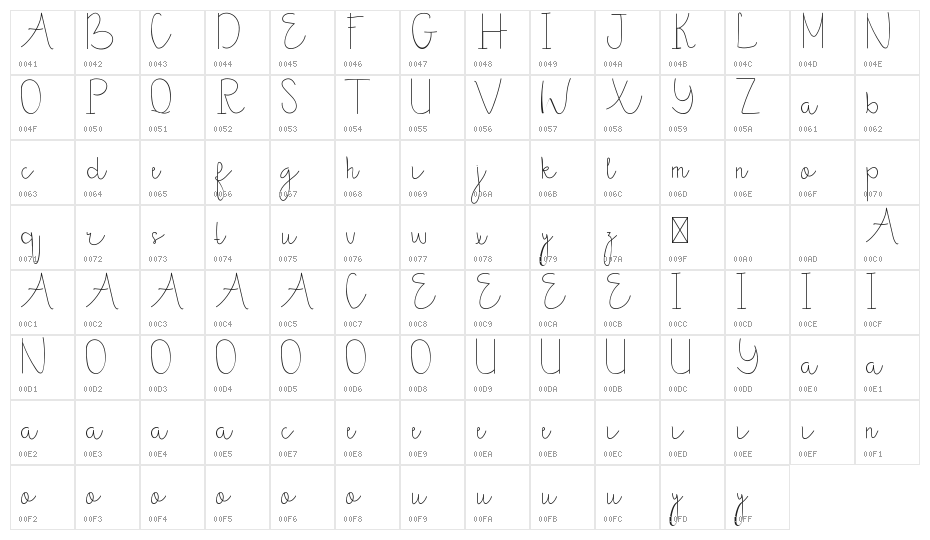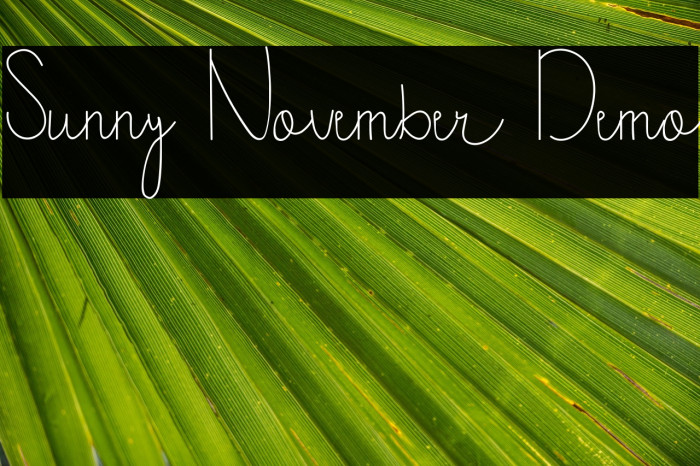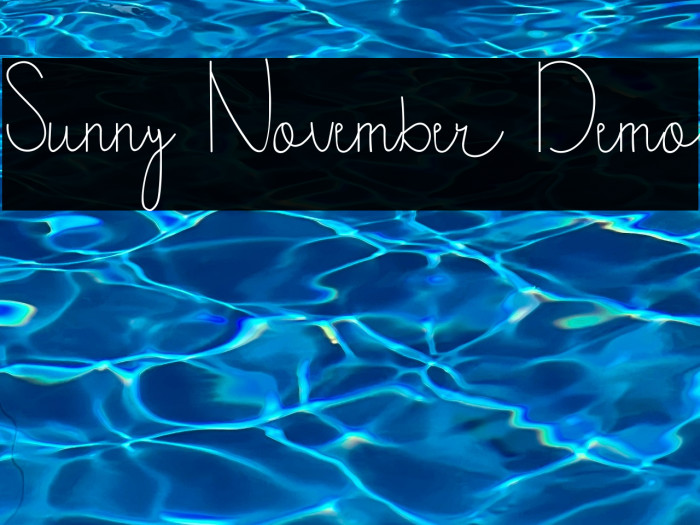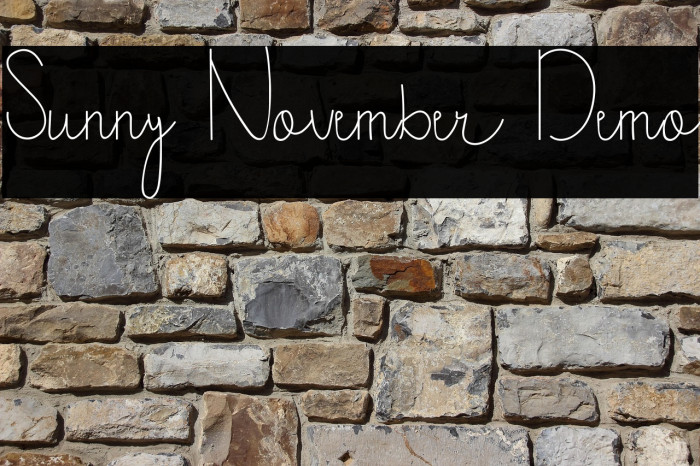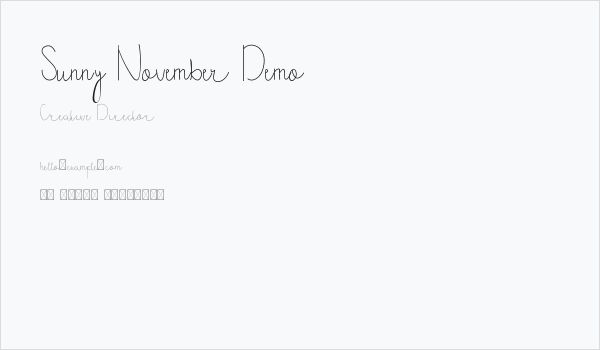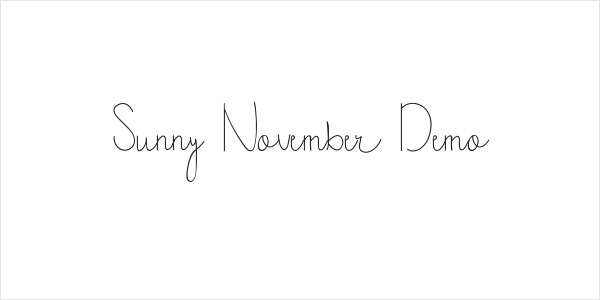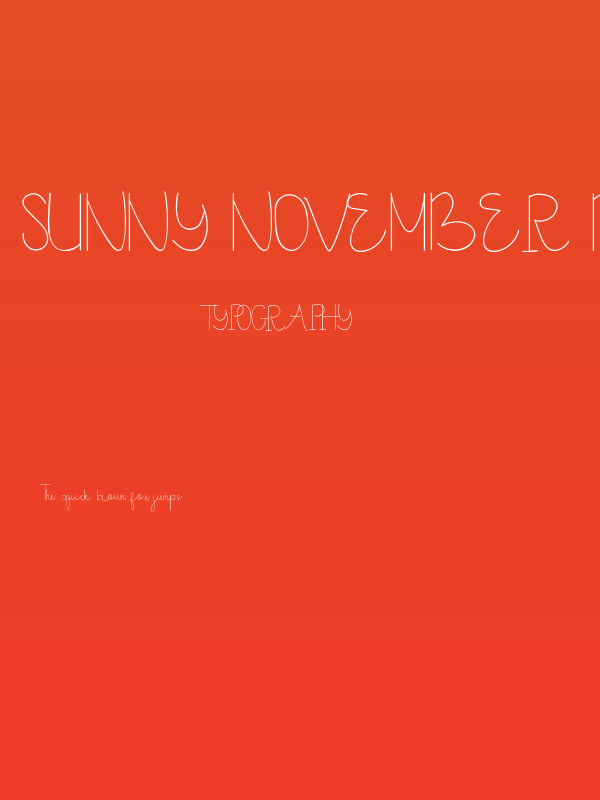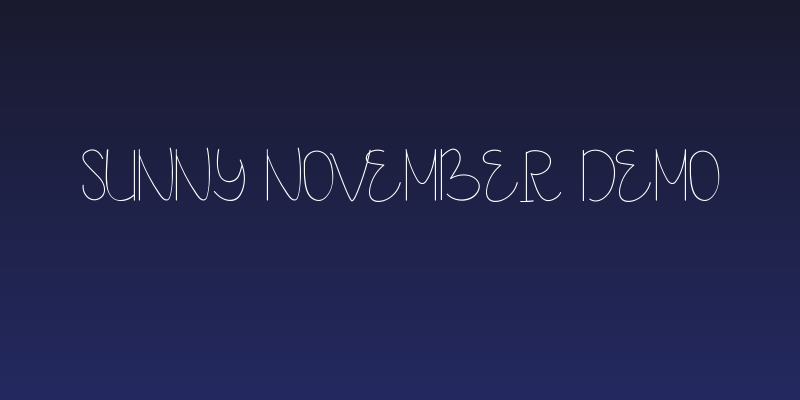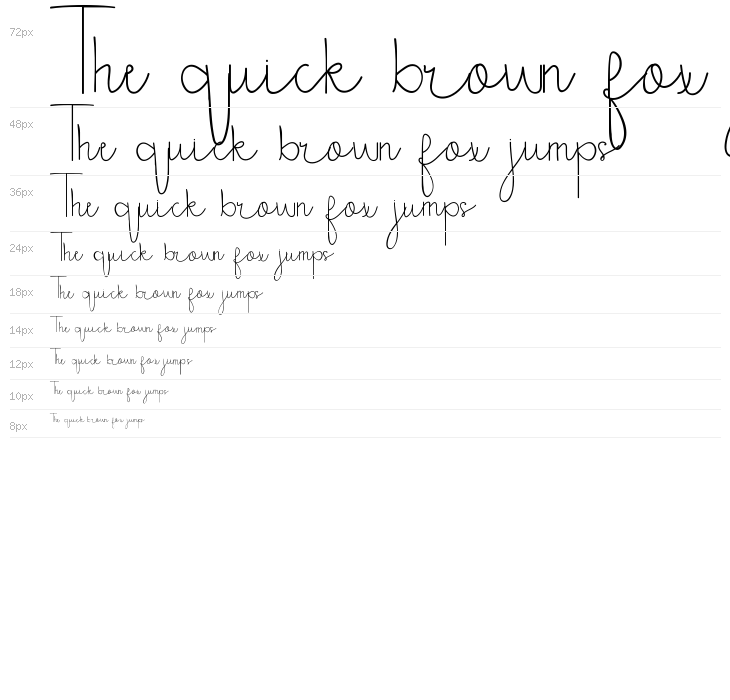
Sunny November Demo Font
Sunny November Demo Description
This font features a playful and whimsical handwritten style, characterized by its thin, flowing lines and slightly irregular letterforms. The uppercase letters exhibit a tall and narrow structure, while the lowercase letters are more fluid and connected, giving a sense of movement and casual elegance. The overall appearance is light and airy, with a touch of informality that makes it suitable for creative and artistic projects. The font maintains a consistent stroke width, contributing to its clean and modern aesthetic. Its unique charm lies in the subtle variations in letter shapes, which add personality and warmth to any design.
| Proposed Projects | Ideal for greeting cards, invitations, personal branding, and creative projects that require a touch of elegance and personality. |